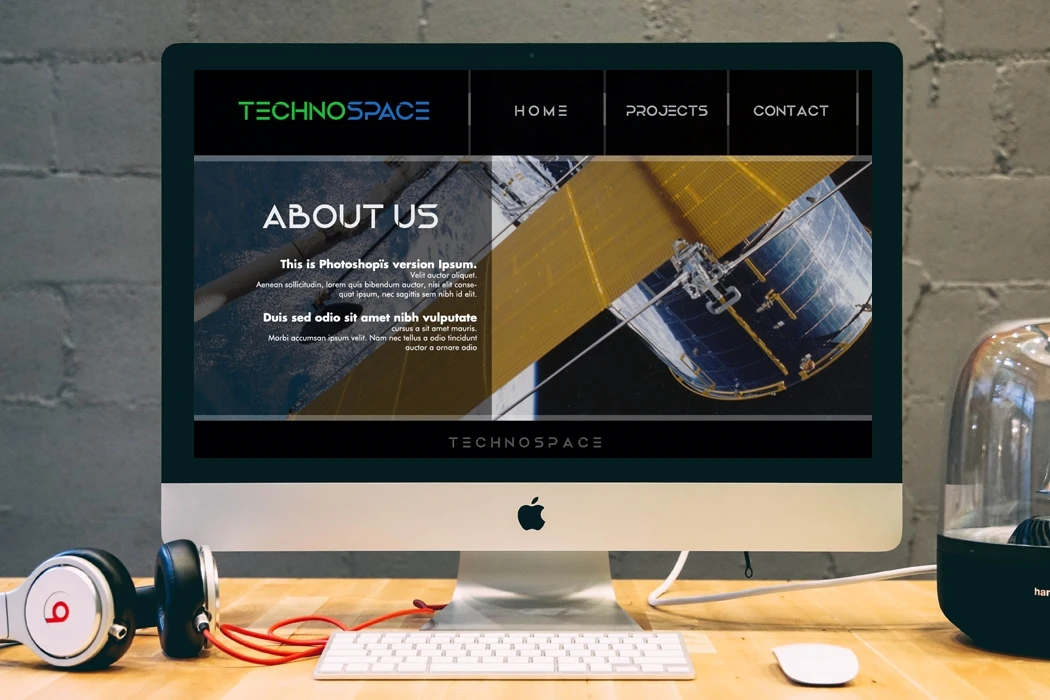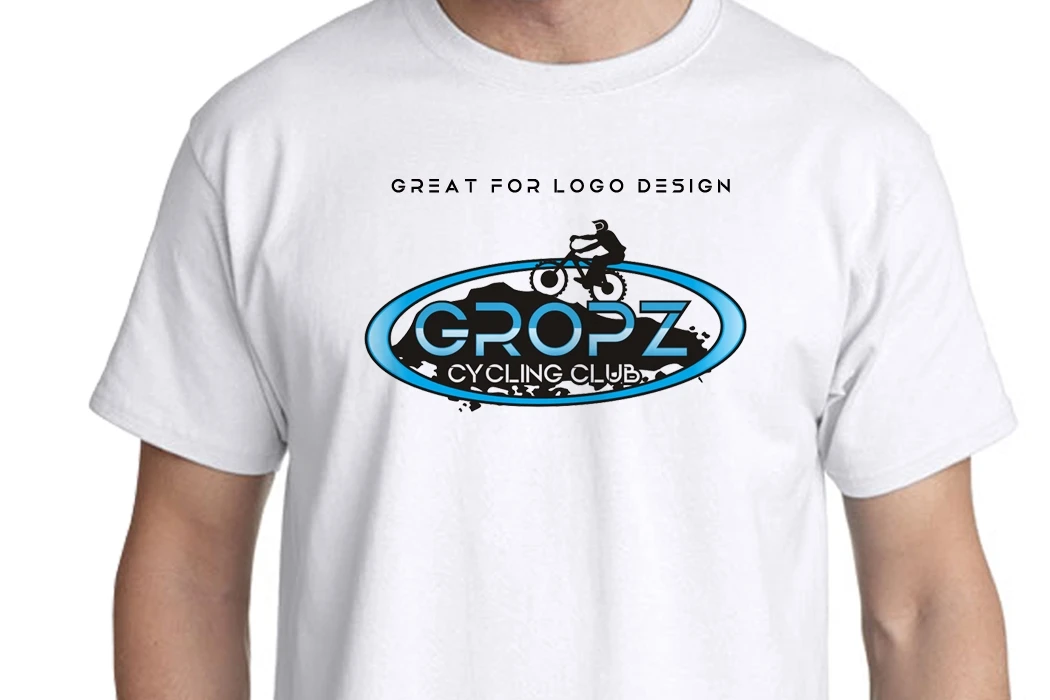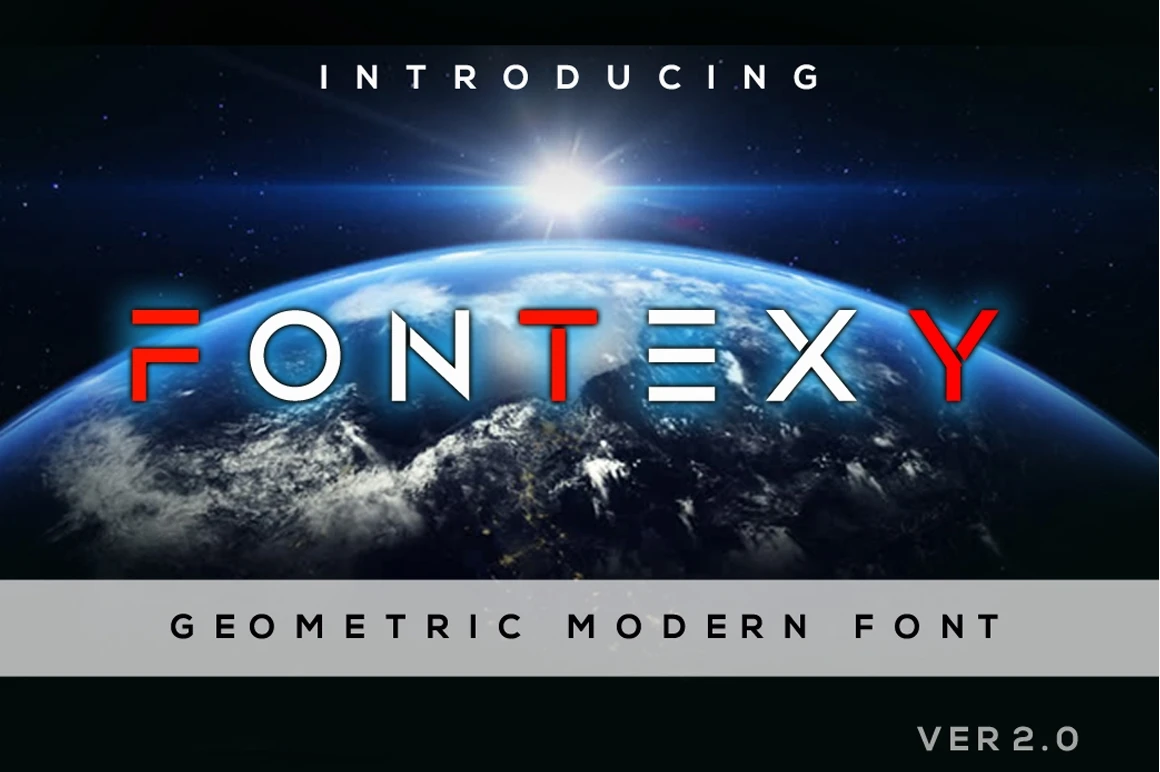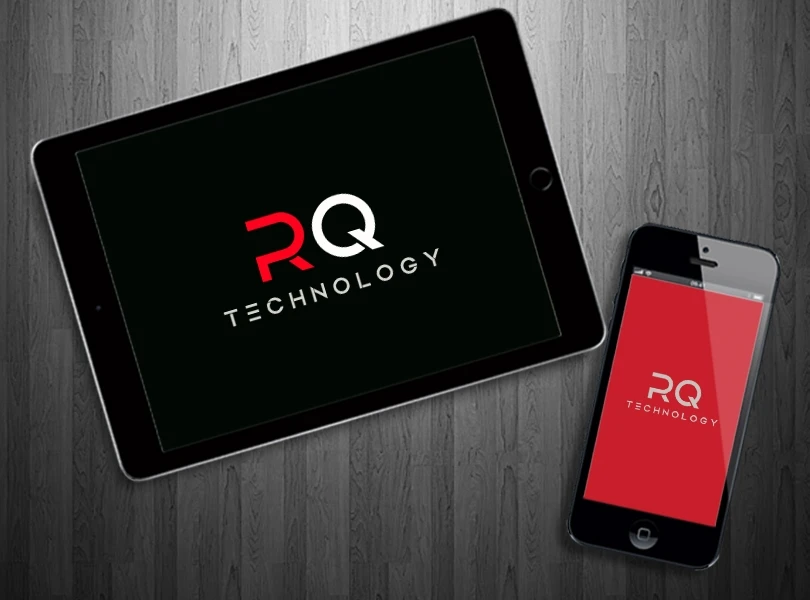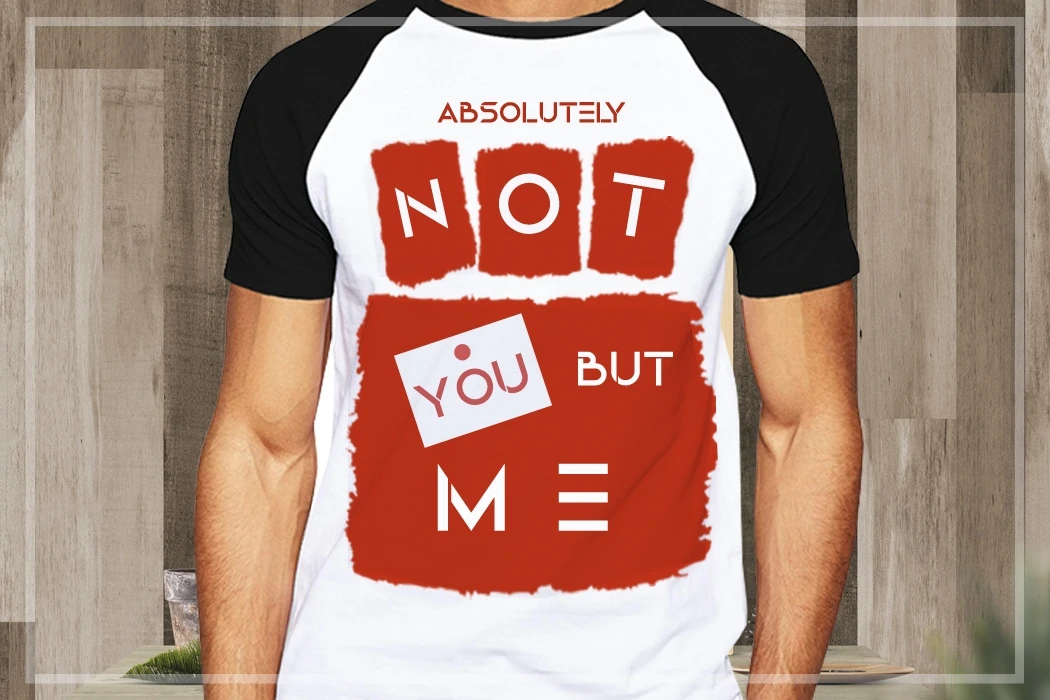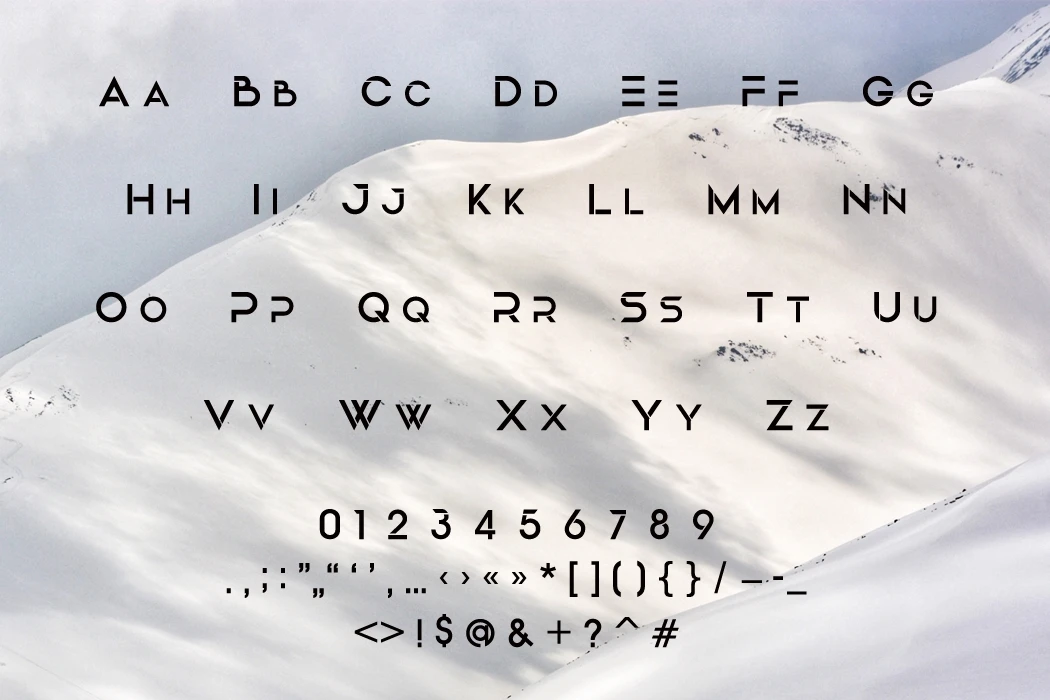
FONTEXY is a modern typeface with simple and strong looks, readable and geometric shapes make it very perfect for modern logo design and branding.
- Uppercase A-Z
- Lowercase A-Z (small size)
- Numbers 0-9
- Punctuation
- Multilingual support